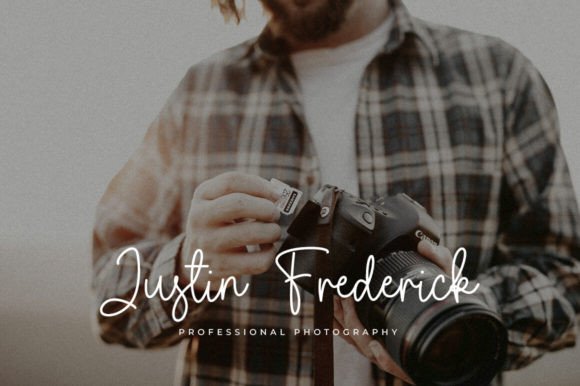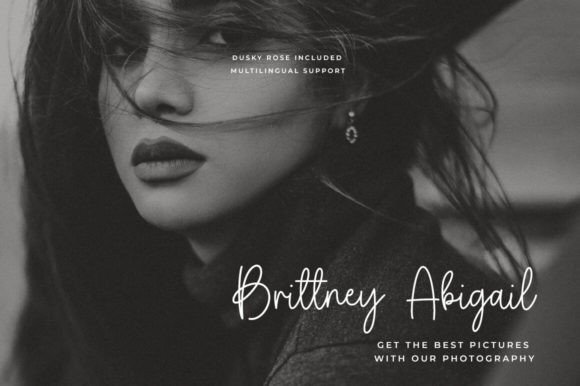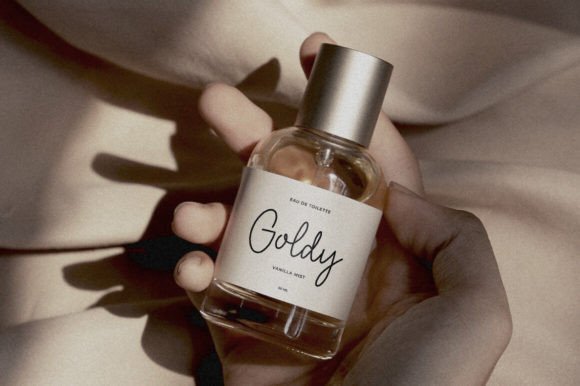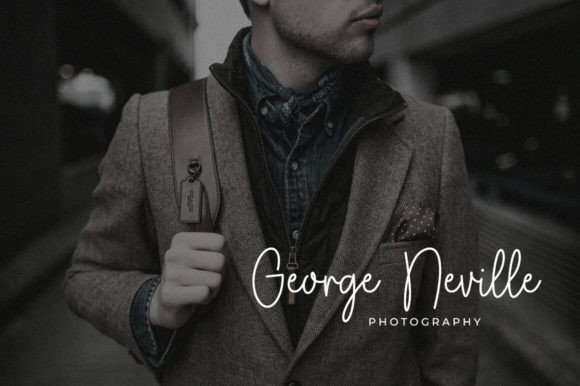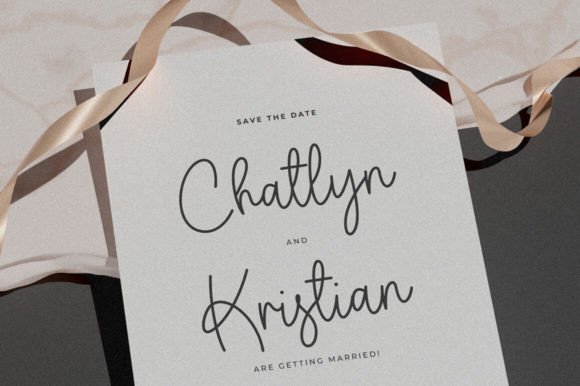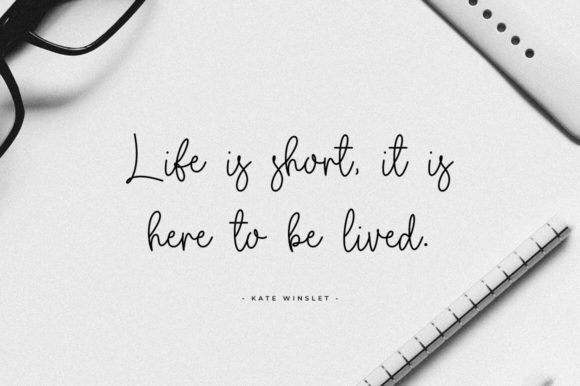
Dusky Rose Font: Elevate Your Designs with Elegant Handwriting
Are you searching for a font that adds a touch of elegance and sophistication to your designs? Look no further than the Dusky Rose Font. This beautiful, flowing handwriting font is perfect for a variety of projects, from wedding invitations and greeting cards to logos and business cards. In this article, we’ll explore the features and benefits of the Dusky Rose Font and how it can elevate your designs.
What is Dusky Rose Font?
Dusky Rose Font is a stunning handwriting font that exudes elegance and refinement. Its flowing script and delicate touch make it perfect for designs that require a personal and sophisticated feel. The font is designed to mimic the look of handwritten writing, with varying letterforms and subtle connections between letters. This unique feature gives the font a natural, organic feel that’s perfect for a range of design applications.
Key Features of Dusky Rose Font
- Elegant and Refined: The Dusky Rose Font features a sophisticated and elegant design that’s perfect for high-end designs.
- Flowing Handwriting: The font’s flowing script and delicate touch give it a natural, handwritten feel.
- Versatile: The Dusky Rose Font is perfect for a range of design applications, from wedding invitations and greeting cards to logos and business cards.
- Easy to Read: The font is clear and easy to read, making it perfect for designs that require a personal touch.
Uses for Dusky Rose Font
The Dusky Rose Font is perfect for a variety of design projects, including:
- Wedding Invitations: The font’s elegant and refined design makes it perfect for wedding invitations, save-the-date cards, and other wedding-related designs.
- Greeting Cards: The Dusky Rose Font is perfect for creating beautiful and personalized greeting cards for special occasions.
- Logos and Branding: The font’s unique and elegant design makes it perfect for logos and branding materials that require a sophisticated touch.
- Business Cards: The Dusky Rose Font is perfect for creating professional and elegant business cards that make a lasting impression.
- Quotes and Typography: The font’s flowing script and delicate touch make it perfect for creating beautiful and inspiring quotes and typography designs.
Benefits of Using Dusky Rose Font
There are many benefits to using the Dusky Rose Font in your designs. Some of the key benefits include:
- Unique and Elegant: The font’s unique and elegant design sets it apart from other fonts and adds a touch of sophistication to your designs.
- Time-Saving: The Dusky Rose Font is easy to use and saves you time and effort in creating beautiful and personalized designs.
- Versatile: The font is perfect for a range of design applications, making it a great addition to your font library.
- High-Quality: The Dusky Rose Font is a high-quality font that’s designed to deliver exceptional results.
Tips for Using Dusky Rose Font
Here are some tips for using the Dusky Rose Font in your designs:
- Pair with Other Fonts: The Dusky Rose Font pairs well with other fonts, such as sans-serif fonts, to create a beautiful and contrasting design.
- Use for Headings and Titles: The font is perfect for headings and titles, where its elegant and refined design can shine.
- Experiment with Colors: The Dusky Rose Font looks great in a range of colors, from soft pastels to rich jewel tones.
- Pay Attention to Kerning: As with any font, pay attention to kerning to ensure that your design looks professional and polished.
| Font Name | Dusky Rose Font |
| Author | Heinzel Std |
The Dusky Rose Font is a beautiful and elegant handwriting font that’s perfect for a range of design applications. Its flowing script and delicate touch make it perfect for designs that require a personal and sophisticated feel. With its versatility, ease of use, and high-quality design, the Dusky Rose Font is a great addition to any designer’s font library. Whether you’re creating wedding invitations, greeting cards, logos, or business cards, the Dusky Rose Font is sure to elevate your designs and leave a lasting impression.